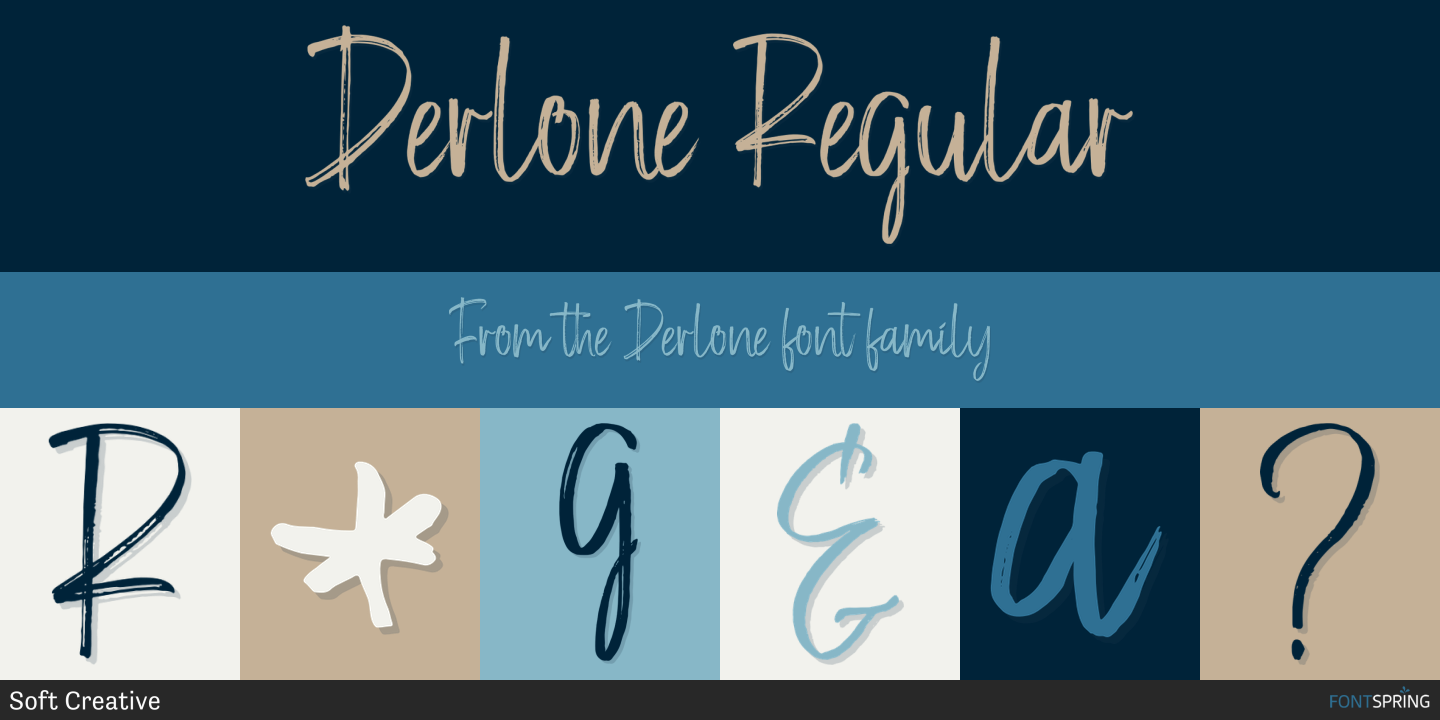
Derlone
Derlone is a brush script font family published by Soft Creative.
Derlone is a new modern brush font with irregular basic lines. contemporary design approach, natural handmade, suitable for use in title designs such as clothing, invitations, book titles, stationery designs, quotes, branding, logos, greeting cards, T-shirts, packaging designs, posters and much more. Complete with upper and lower case letters, as well as multi-language support, numbers, punctuation, and several ligatures as complements. Thank you so much for looking and let me know if you have any questions.